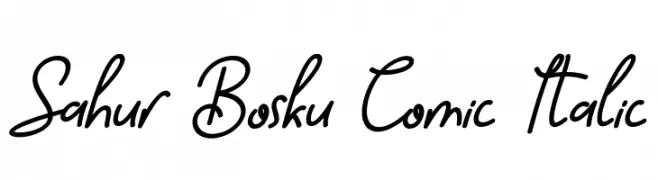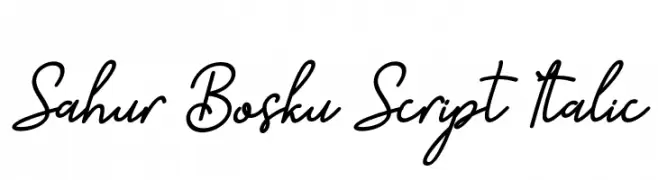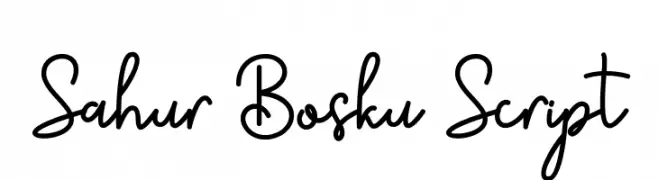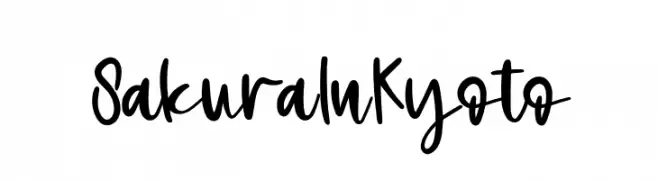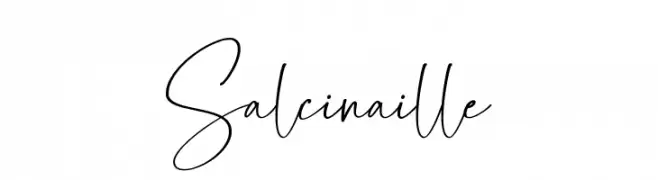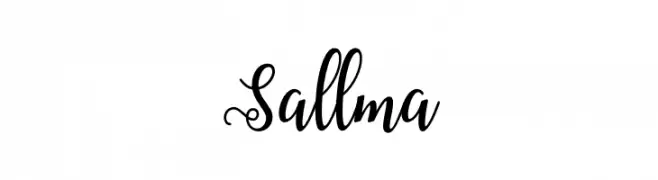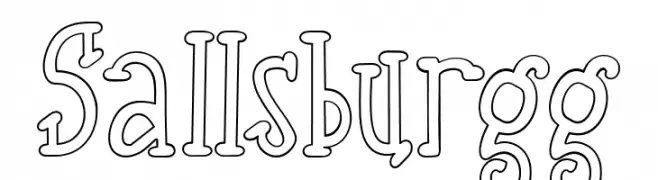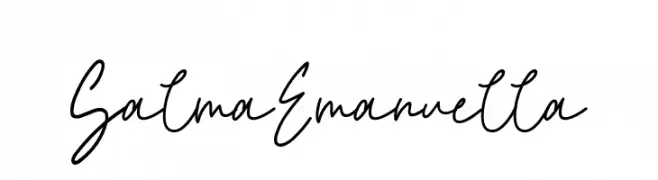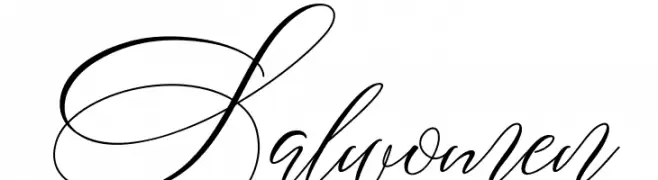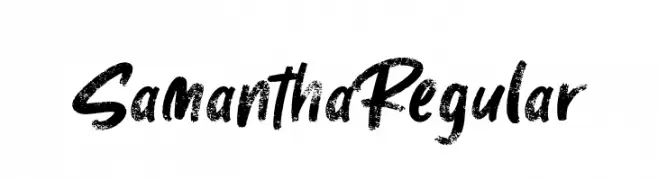
A playful, handwritten script font with an italic style.
A playful and elegant script font with a handwritten style.
A flowing, cursive script font with elegant, connected strokes.
A bold, playful handwritten font with dynamic strokes and a modern feel.
A playful and elegant handwritten font with fluid, cursive letterforms.
An elegant script font with decorative swirls and flourishes.
A playful, hand-drawn font with outlined characters and a whimsical style.
A casual, handwritten cursive font with elegant, flowing connections.
A sophisticated script font with flowing, ornate cursive letters and intricate swashes.
A bold, textured brush-style font with an expressive and artistic flair.